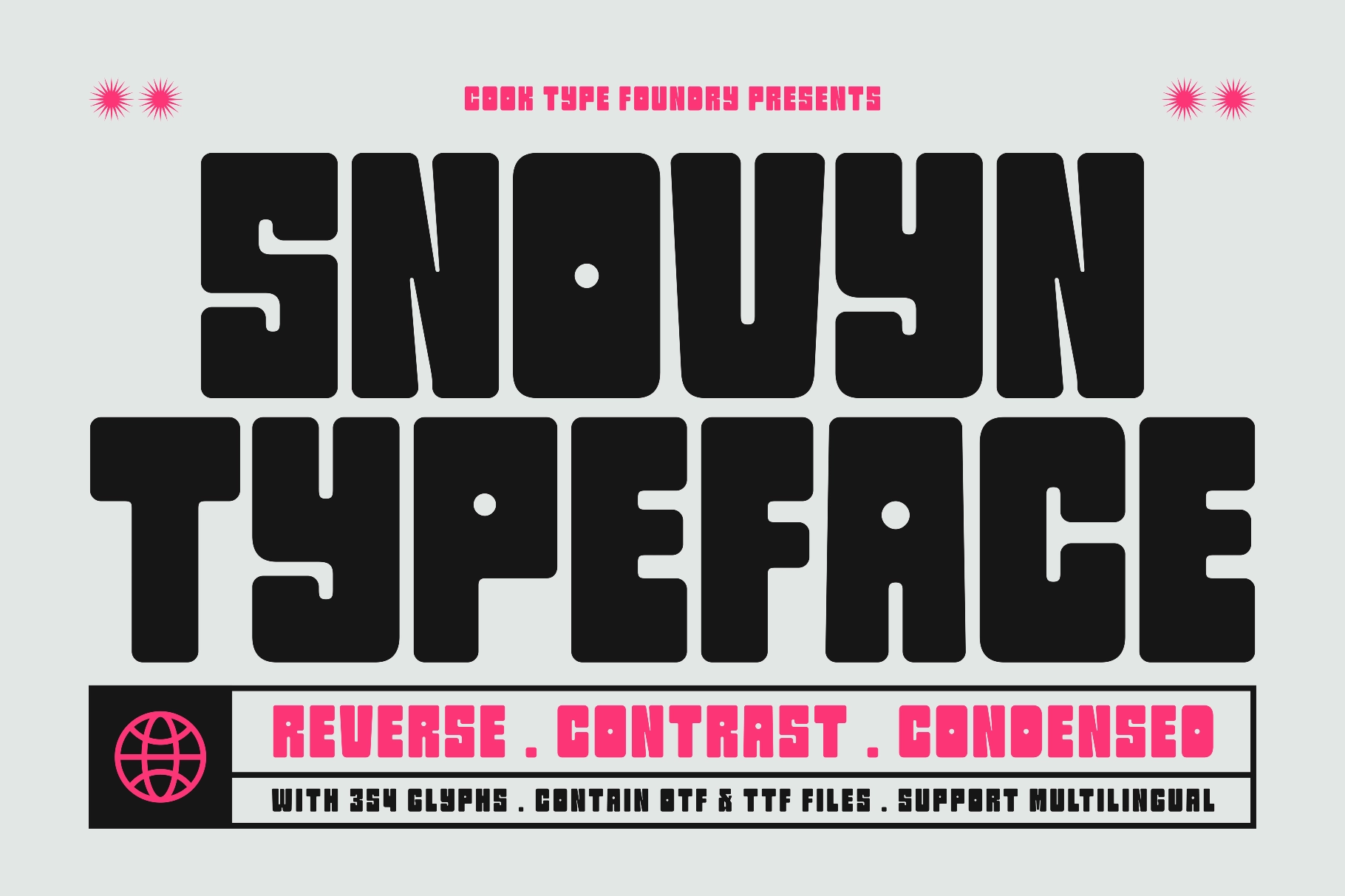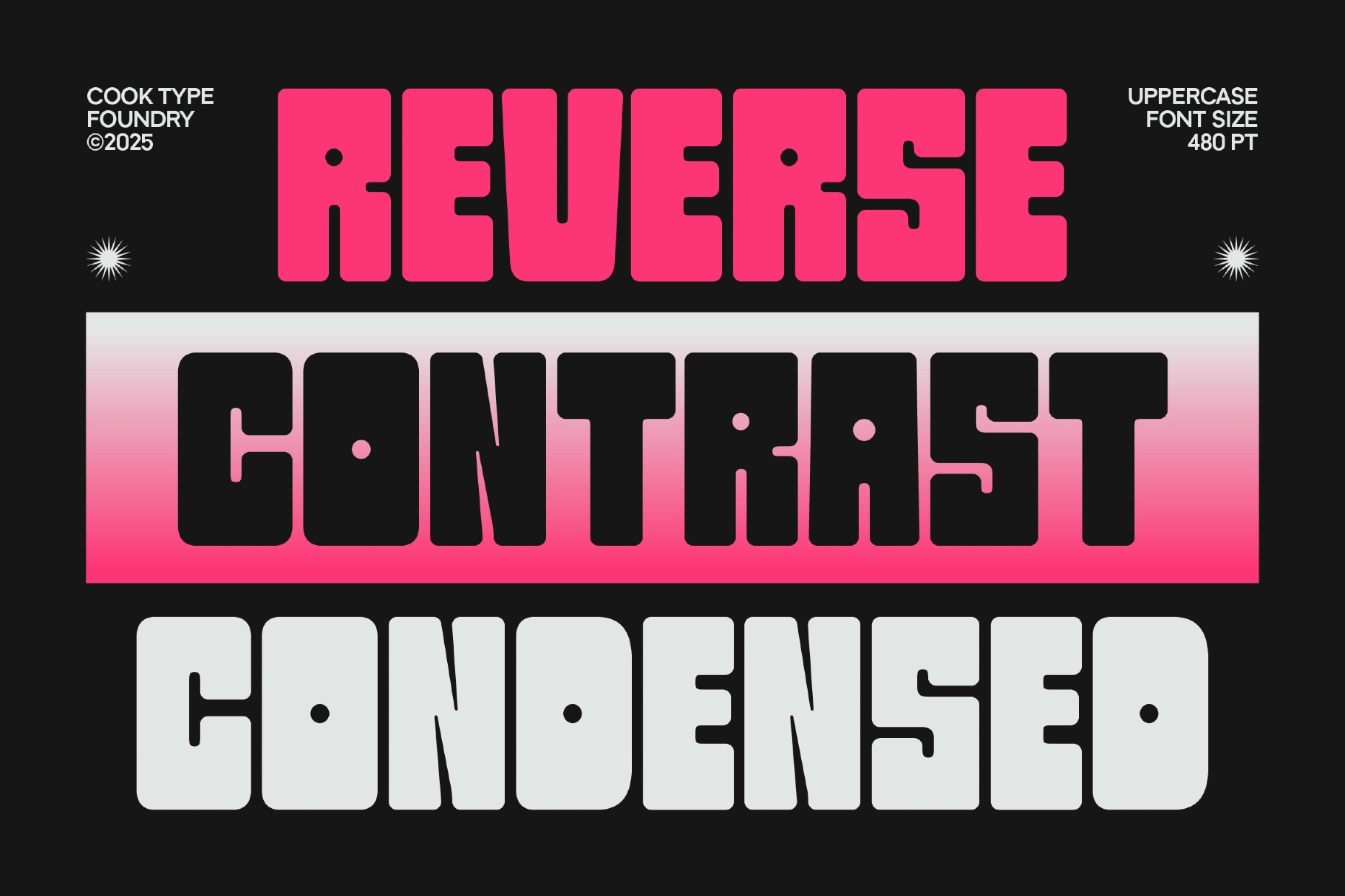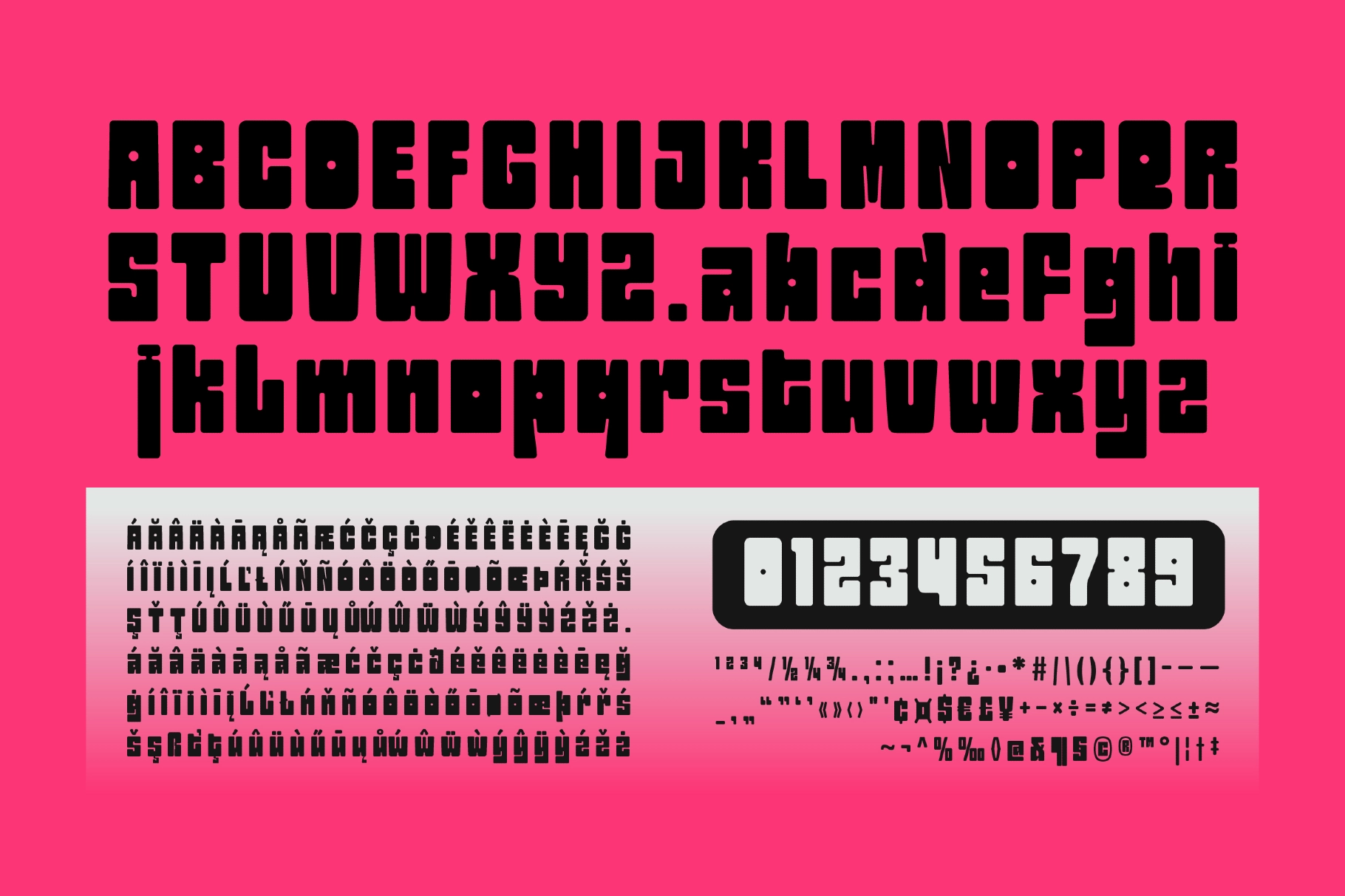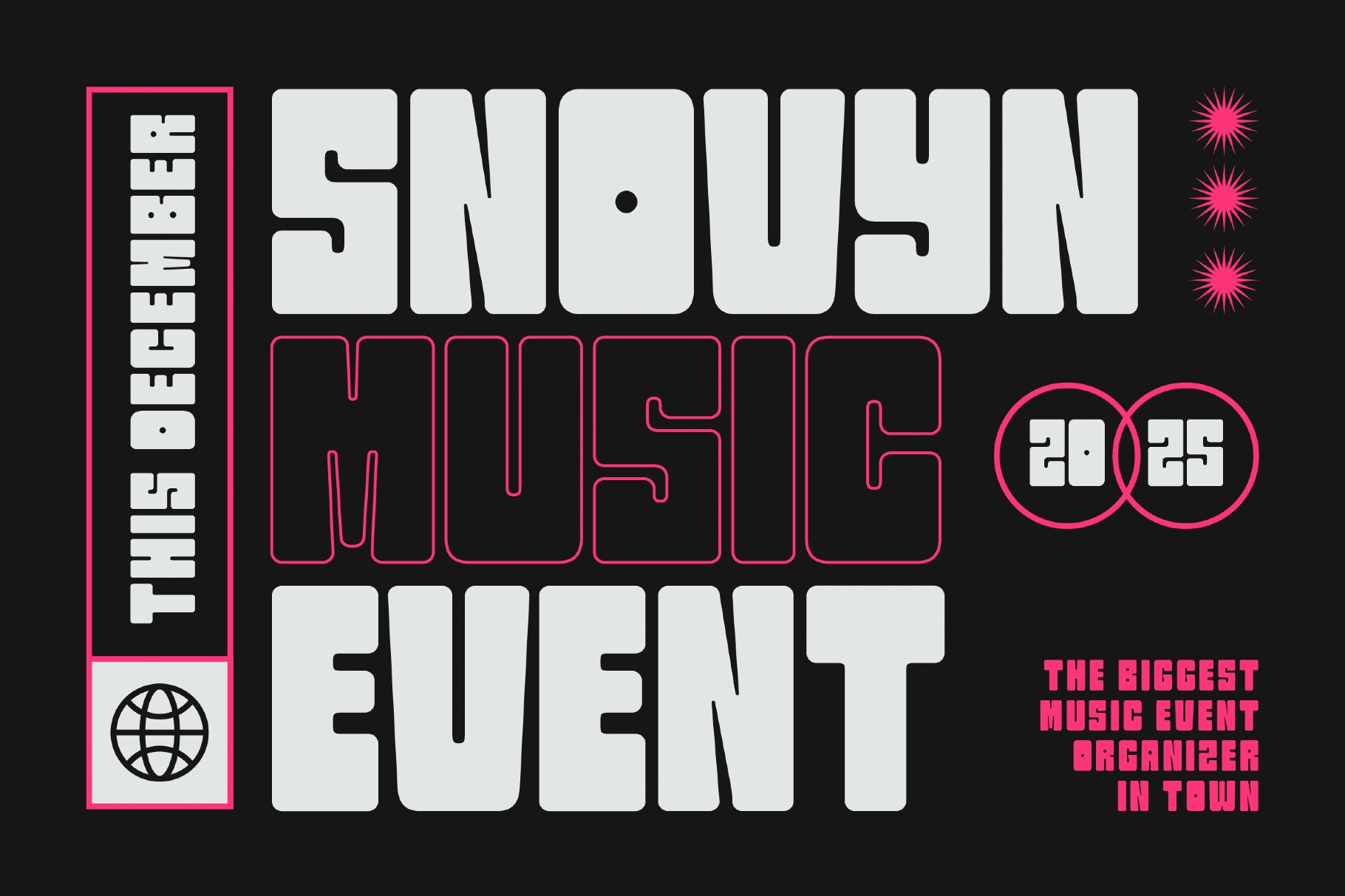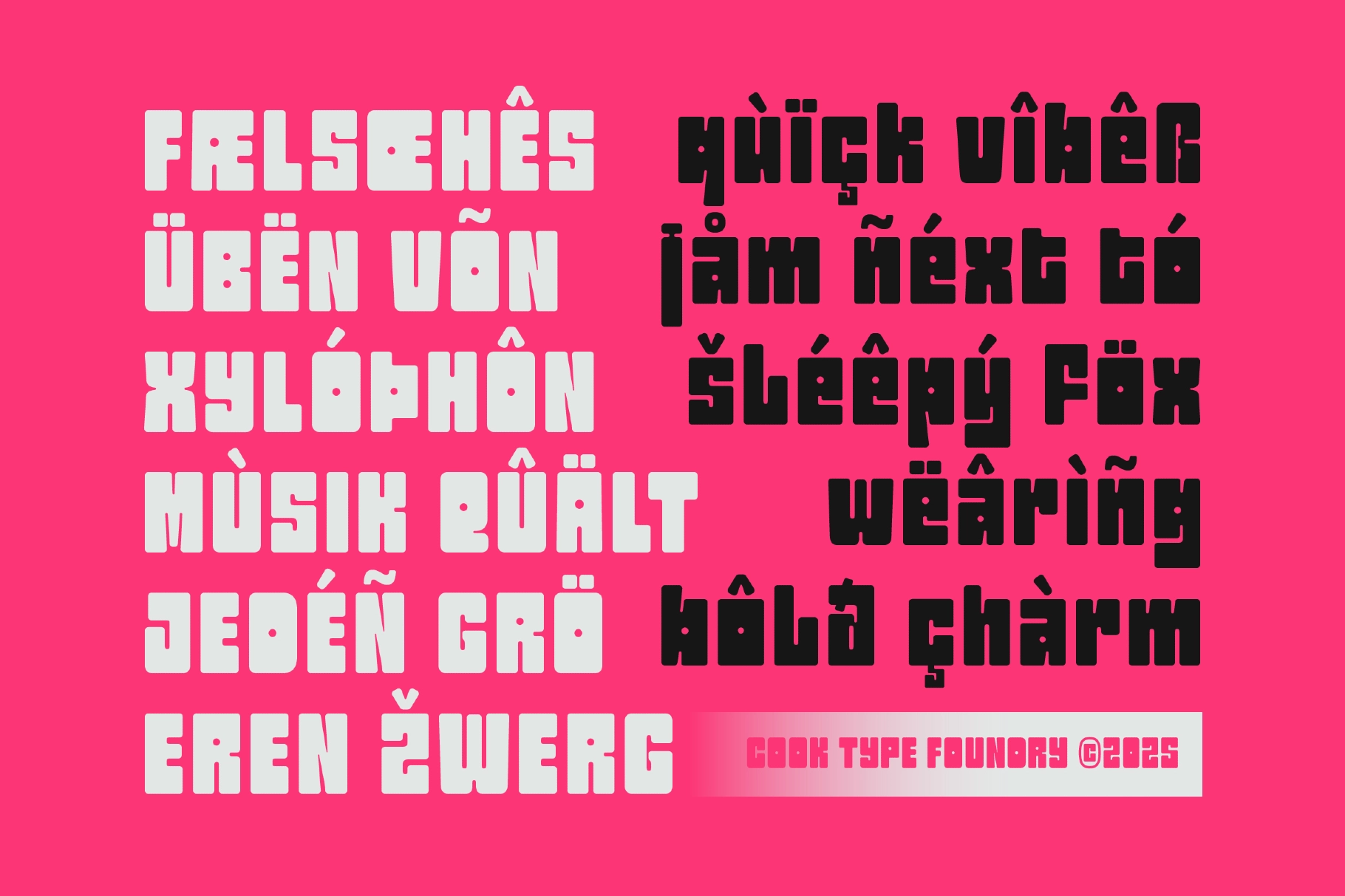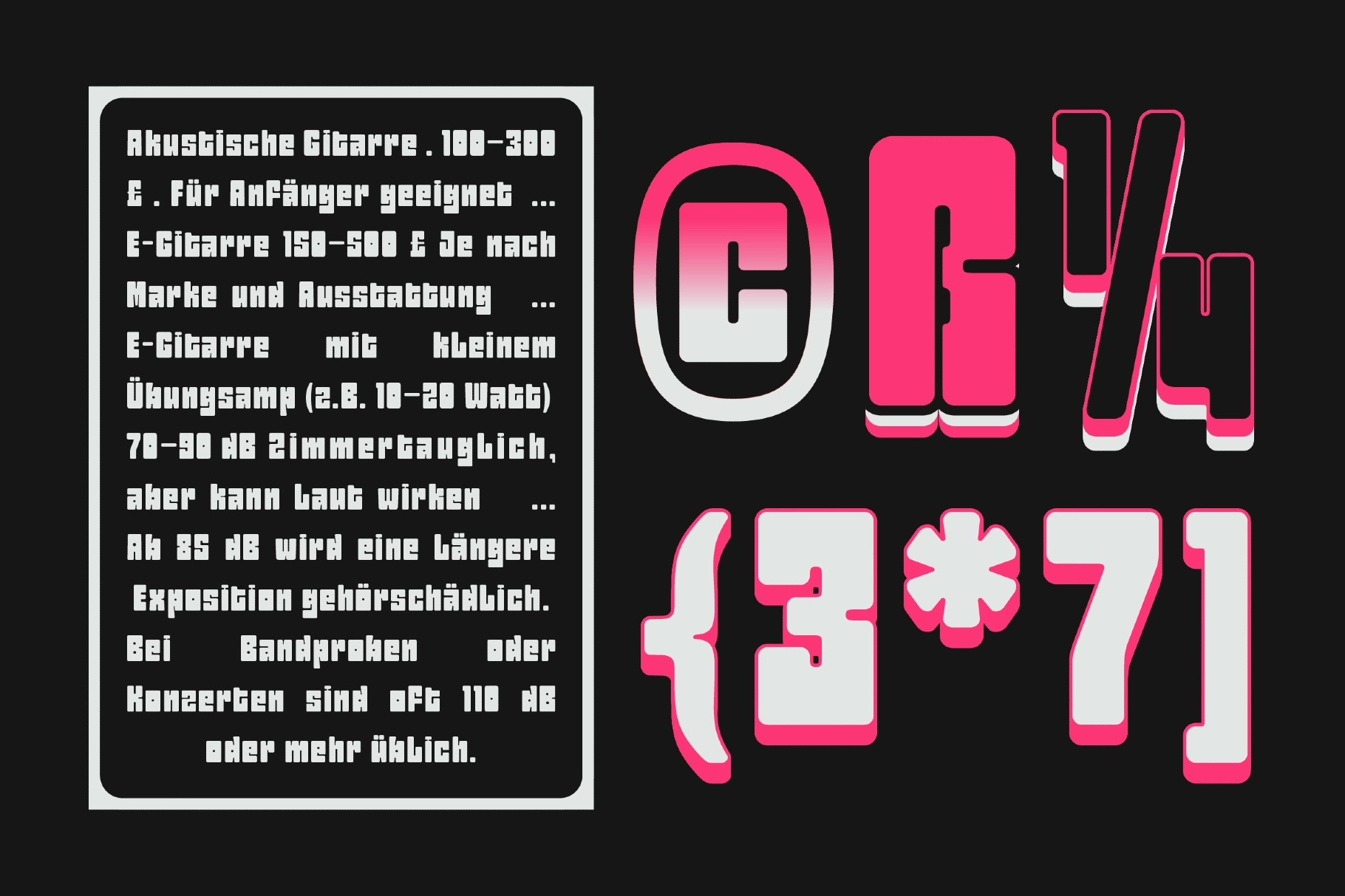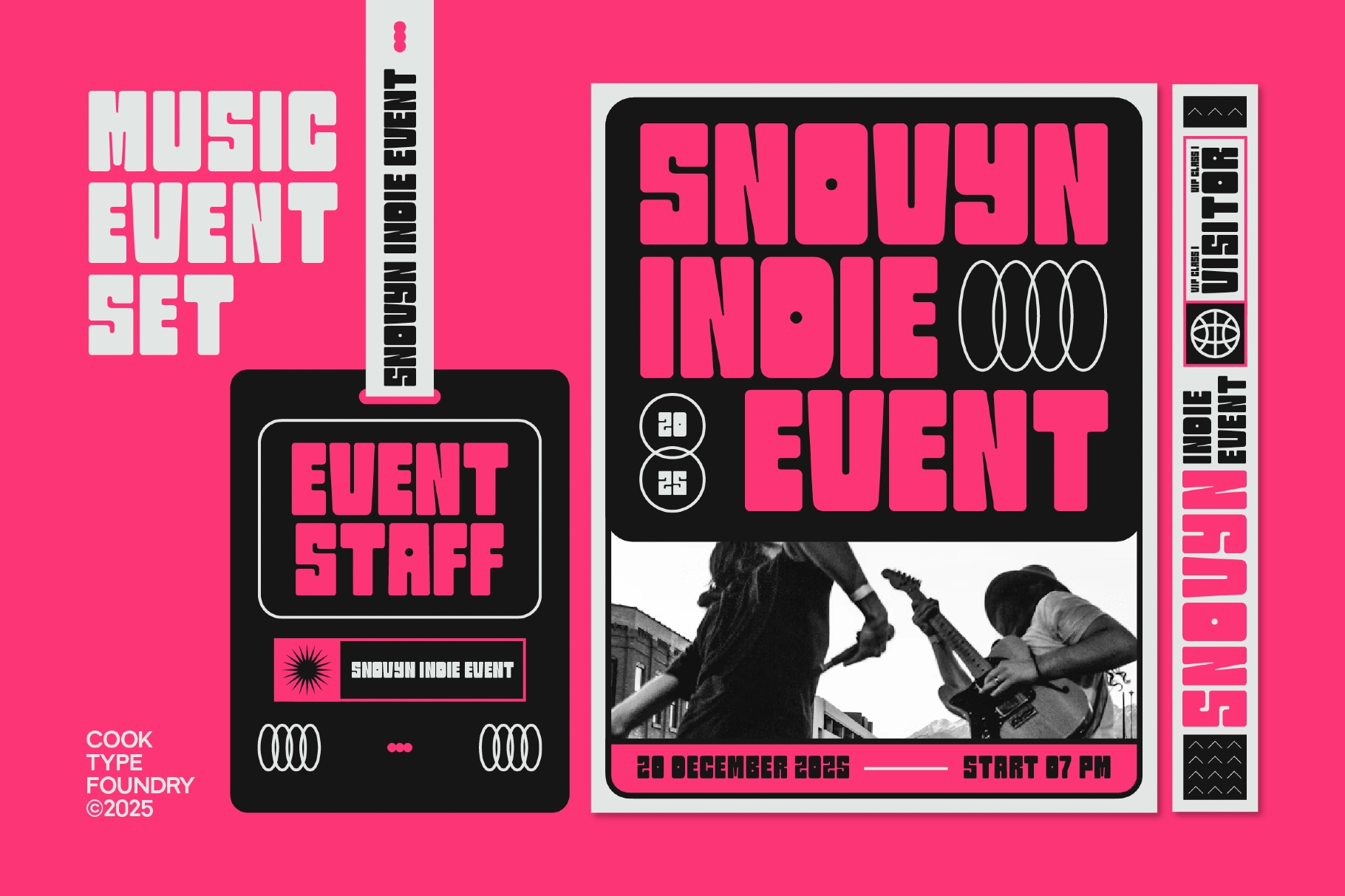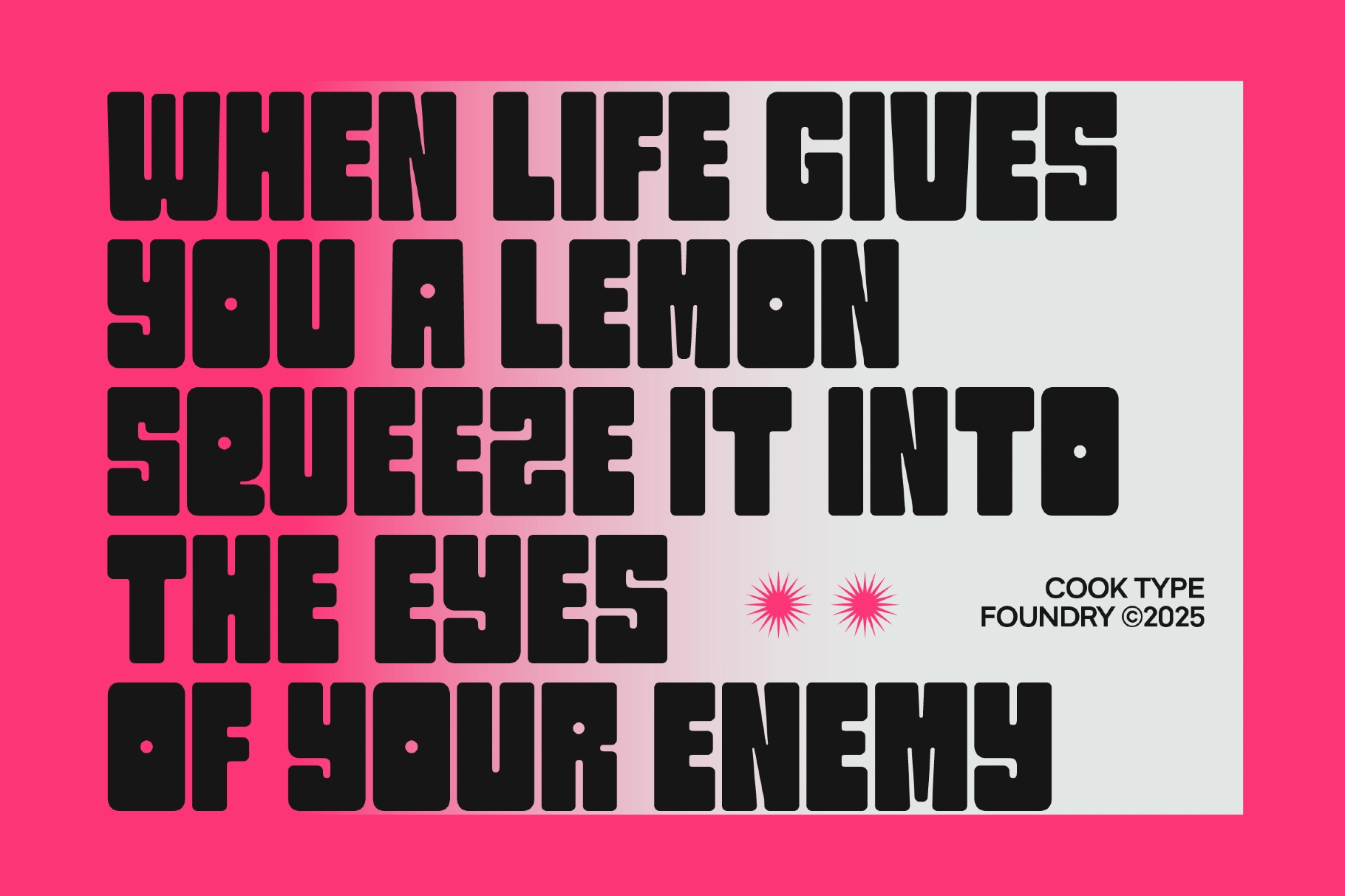
Snovyn - Bold Geometric Display Font
Snovyn - Bold Geometric Display Font is a striking sans-serif typeface crafted with a distinctive reverse-contrast structure and bold, condensed proportions. Designed to command attention, Snovyn blends geometric precision with a modern-retro attitude, resulting in a powerful visual style that feels both experimental and nostalgic. Its thick strokes, compact letterforms, and unique character construction create a dynamic rhythm that stands out instantly in large-scale typography.
Perfect for posters, music event graphics, branding, editorial headlines, merchandise, social media visuals, and statement layouts, Snovyn delivers strong personality and expressive impact. The font’s unconventional contrast and solid geometric shapes make it ideal for designers looking to create bold compositions with a confident, contemporary edge. Whether used for modern branding or retro-inspired concepts, Snovyn - Bold Geometric Display Font ensures your typography makes a memorable impression.